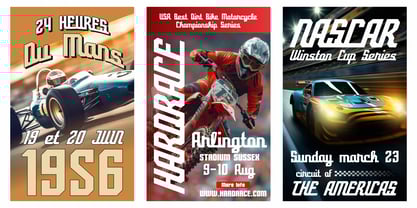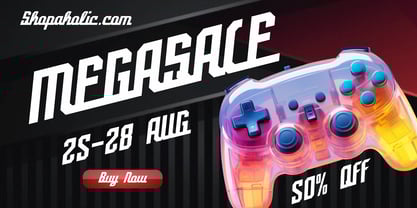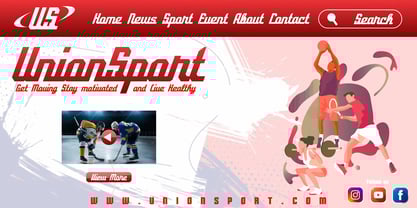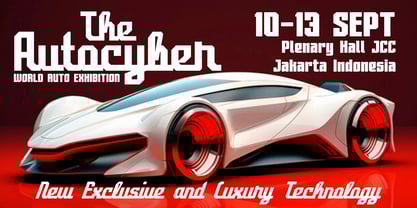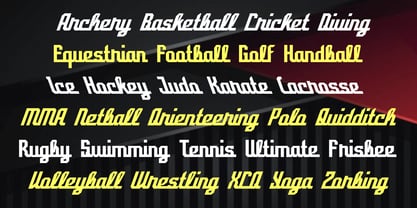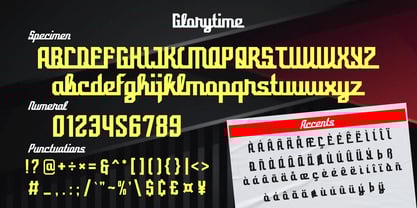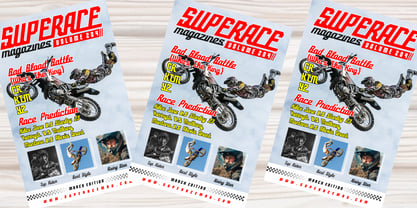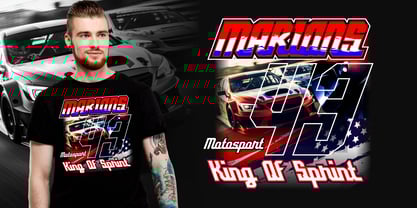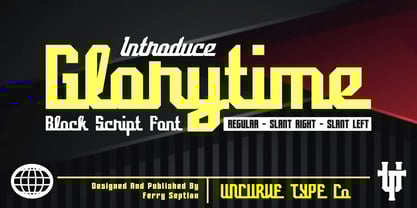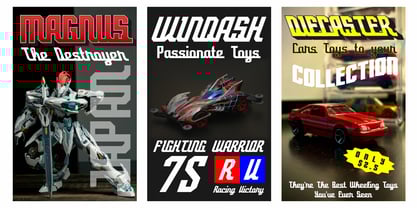
Glorytime
by Uncurve
The Glorytime Font Family was designed by Ferry Septian and published by Uncurve. Glorytime contains 3 styles and family package options.
Glorytime – Modern Block Script Font
Glorytime is a bold and energetic block script font designed for impact. Featuring three versatile styles—Regular, Slant Right, and Slant Left—this font gives you the flexibility to create dynamic and modern compositions that stand out in any setting. Its sharp curves and powerful strokes bring a perfect mix of futuristic flair and sporty energy.
Inspired by fast-paced design environments like racing, sports branding, and gaming, Glorytime is ideal for logos, posters, flyers, apparel, book covers, race event graphics, social media posts, automotive design, websites, and more. Whether you're designing for a game title, garage brand, or athletic gear, Glorytime delivers a strong and stylish look with confidence.